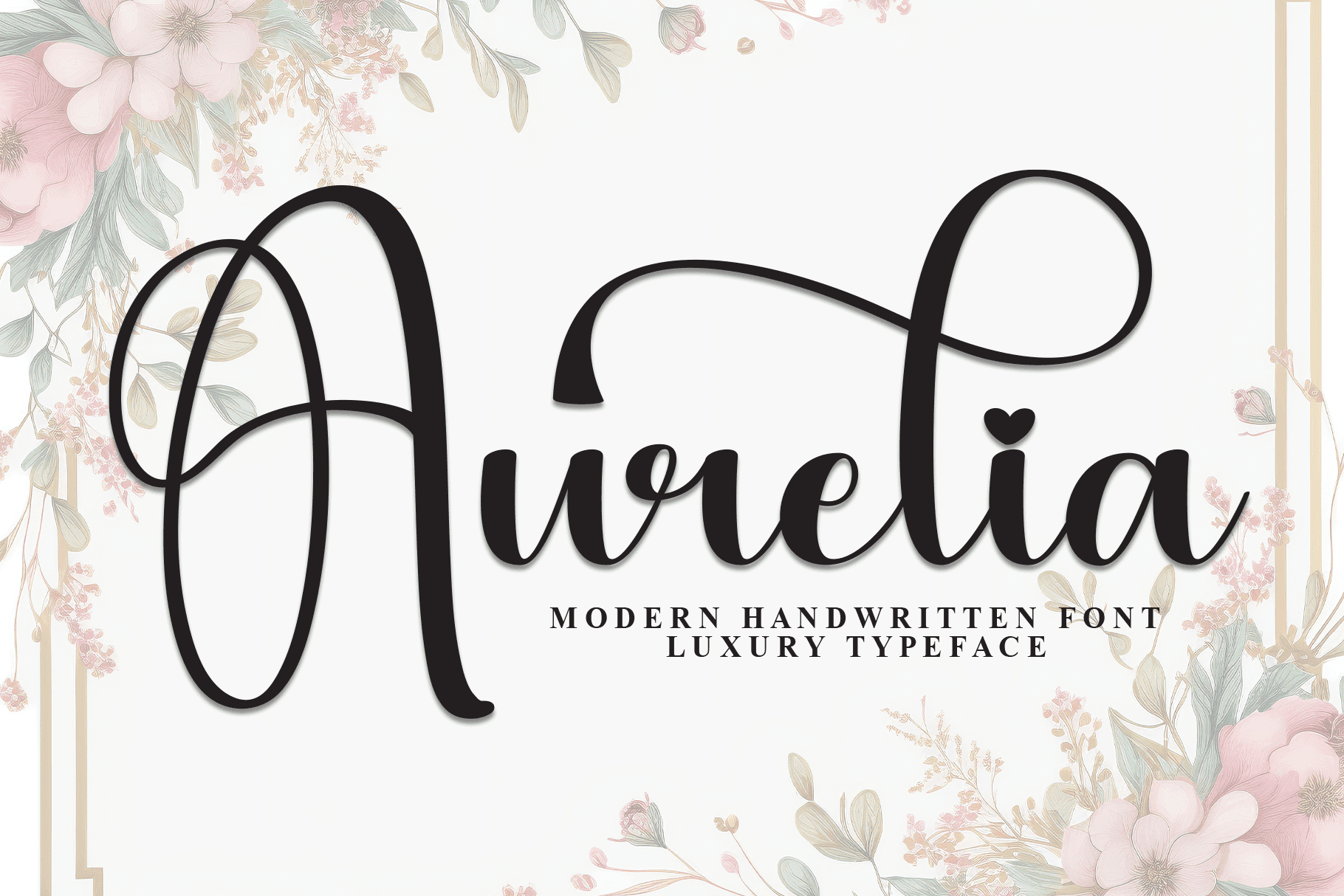
Introducing the Charm of Aurelia Font: A Delightful Handwritten Display Typeface In the vibrant world of typography, where each font tells a story, Aurelia Font emerges as a captivating handwritten display typeface that radiates charm and near-endear...